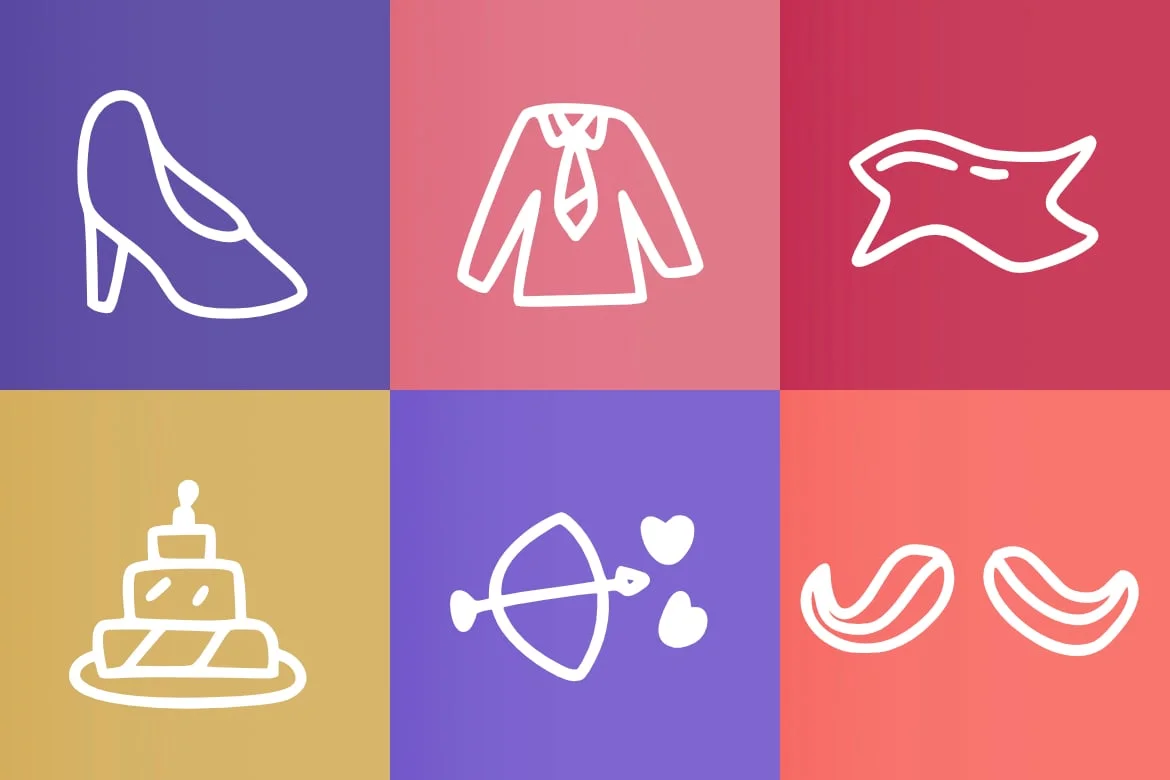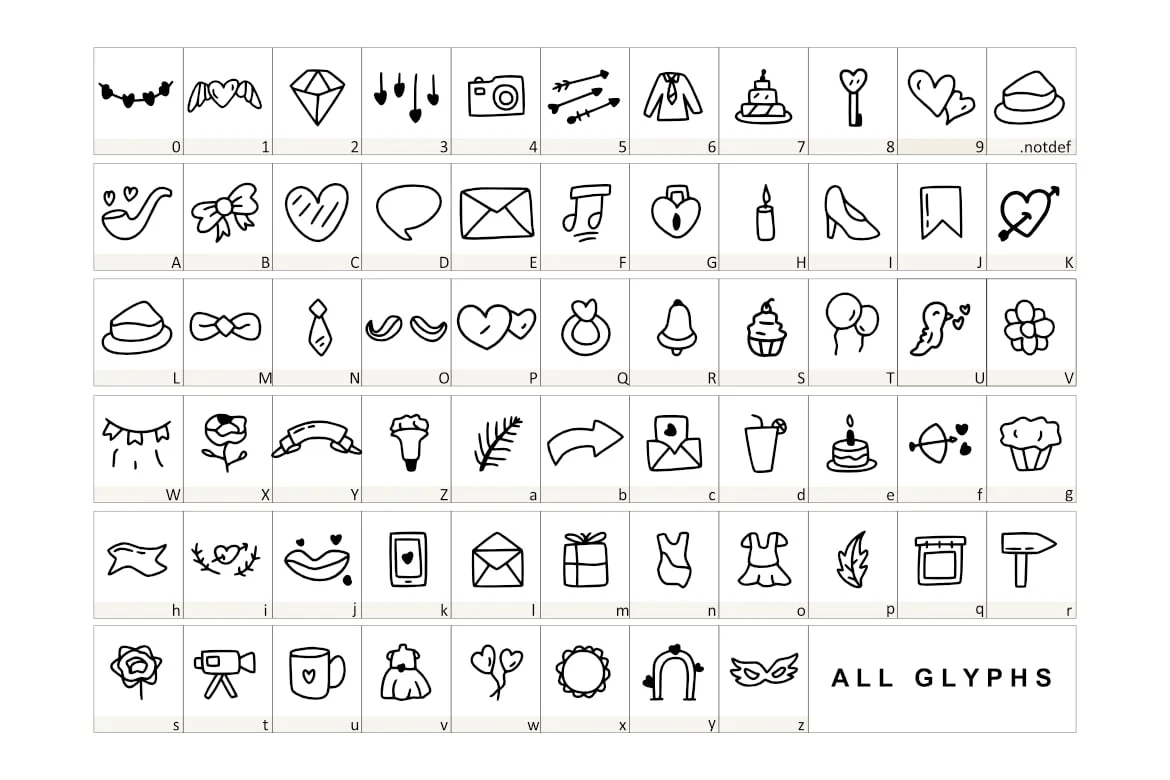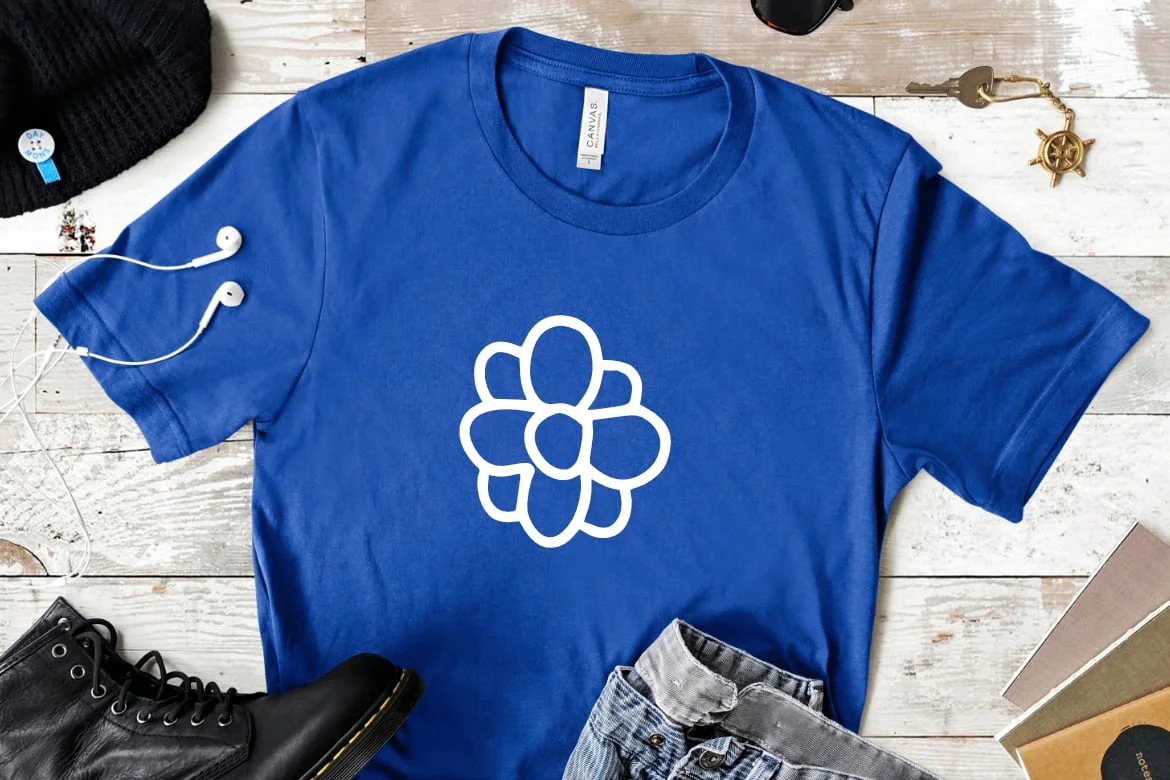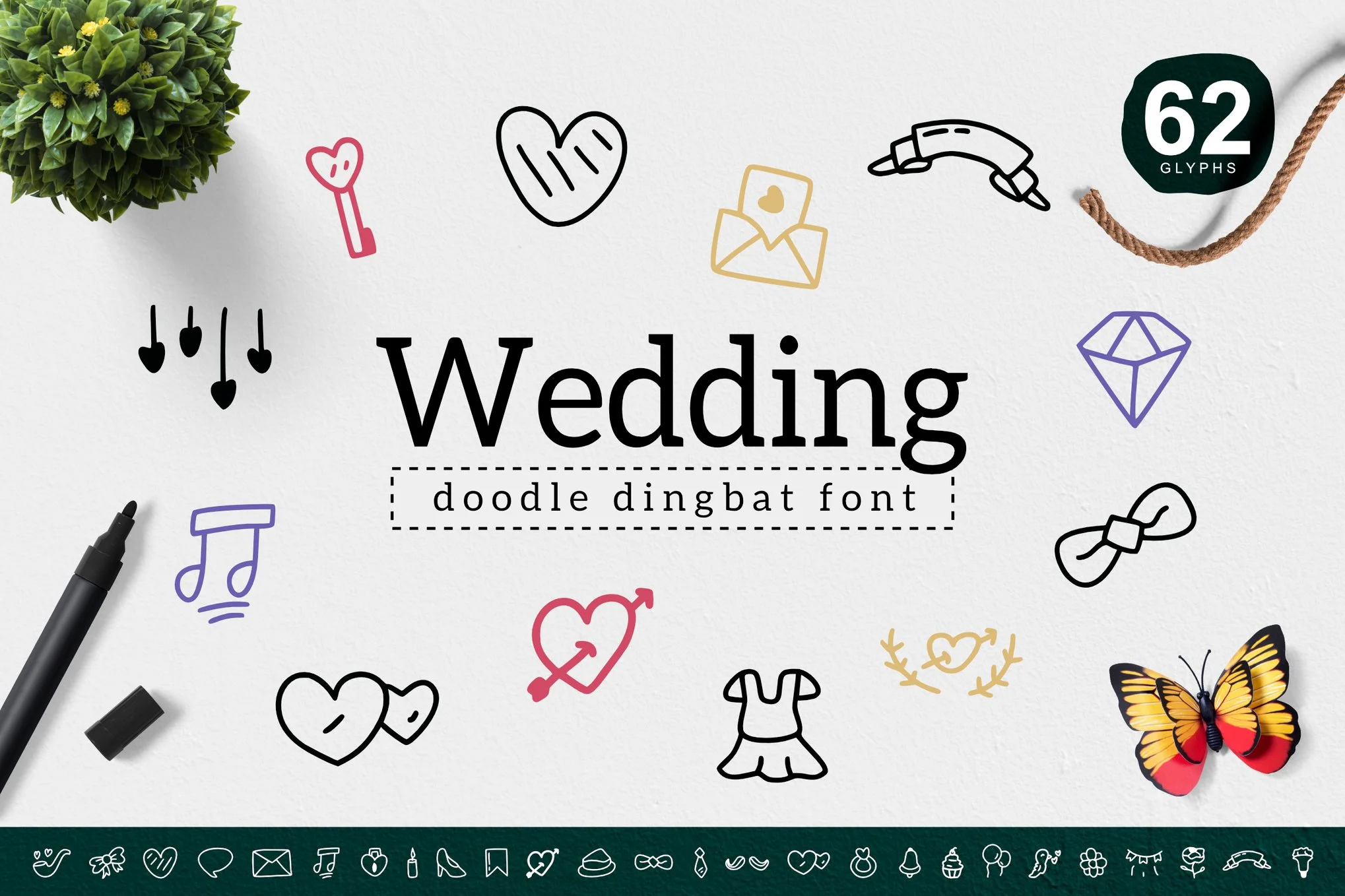
The Wedding Dingbat Font excels in decorative design applications including ornamental wedding invitations, symbolic bridal branding, decorative ceremony logos, embellished product packaging, ornate business cards, decorative portfolios, symbol-rich greeting cards, ornamental social media graphics, decorative event signage, and embellished marketing materials. Its dingbat style makes it perfect for projects requiring decorative elegance that communicates symbolic beauty and establishes ornamental brand positioning with audiences seeking embellished wedding experiences and decorative sophistication.
What makes the Wedding Dingbat Font truly exciting is its exceptional ability to provide beautiful symbolic elements and decorative flourishes that enhance wedding typography through carefully crafted ornamental designs. The font features elegant symbols with wedding-themed proportions and ceremonial details that create distinctly decorative appearances perfect for wedding applications. Each symbol displays masterful attention to ornamental detail with graceful curves, symbolic connections, and decorative spacing that give designs a beautifully embellished, hand-crafted quality. The font's symbolic character and ornamental rhythm create an atmosphere of decorative beauty while maintaining elegant sophistication and wedding authenticity.
The Wedding Dingbat Font family typically includes extensive symbol coverage featuring wedding rings, hearts, flourishes, borders, ornamental elements, and ceremonial symbols. The typeface often incorporates multiple symbol variations, decorative borders, and ornamental flourishes that enhance its signature beauty. These additional elements provide designers with creative flexibility to customize designs and achieve more natural-looking decorative embellishments that reflect the font's ornamental and symbolic character.
This decorative signature font distinguishes itself through its remarkable ability to transform simple wedding designs into ornate masterpieces through symbolic enhancement. Unlike plain fonts that lack decorative elements, Wedding Dingbat Font offers designers the perfect collection of wedding symbols and ornamental flourishes for creating sophisticated ceremonial typography. The font's symbolic character makes it essential for wedding designers, ornamental brands, and decorative businesses where adding beautiful symbolic elements and creating embellished wedding experiences is fundamental to success in luxury wedding markets.
The Wedding Dingbat Font presents designers with an outstanding opportunity to incorporate symbolic elegance into their ornamental wedding projects. From decorated wedding stationery to symbolic bridal brands, this font delivers the ornamental signature aesthetic that resonates with couples seeking beautifully embellished and symbolically rich wedding experiences. Its decorative appeal ensures your designs communicate symbolic beauty while the dingbat styling adds distinctive ornamental elements that reflect ceremonial elegance and decorative sophistication in any application requiring symbolic typography solutions.
Wedding Dingbat Simple Wedding doodle dingbat, suitable for many project, logo, ornament etc. Contain 62 symbols as the preview above. What you get Wedding Dingbat .TTF .OTF and EOT files format. Unicode Basic Latin a-z, A-Z, 0-9 Hopefully you like it